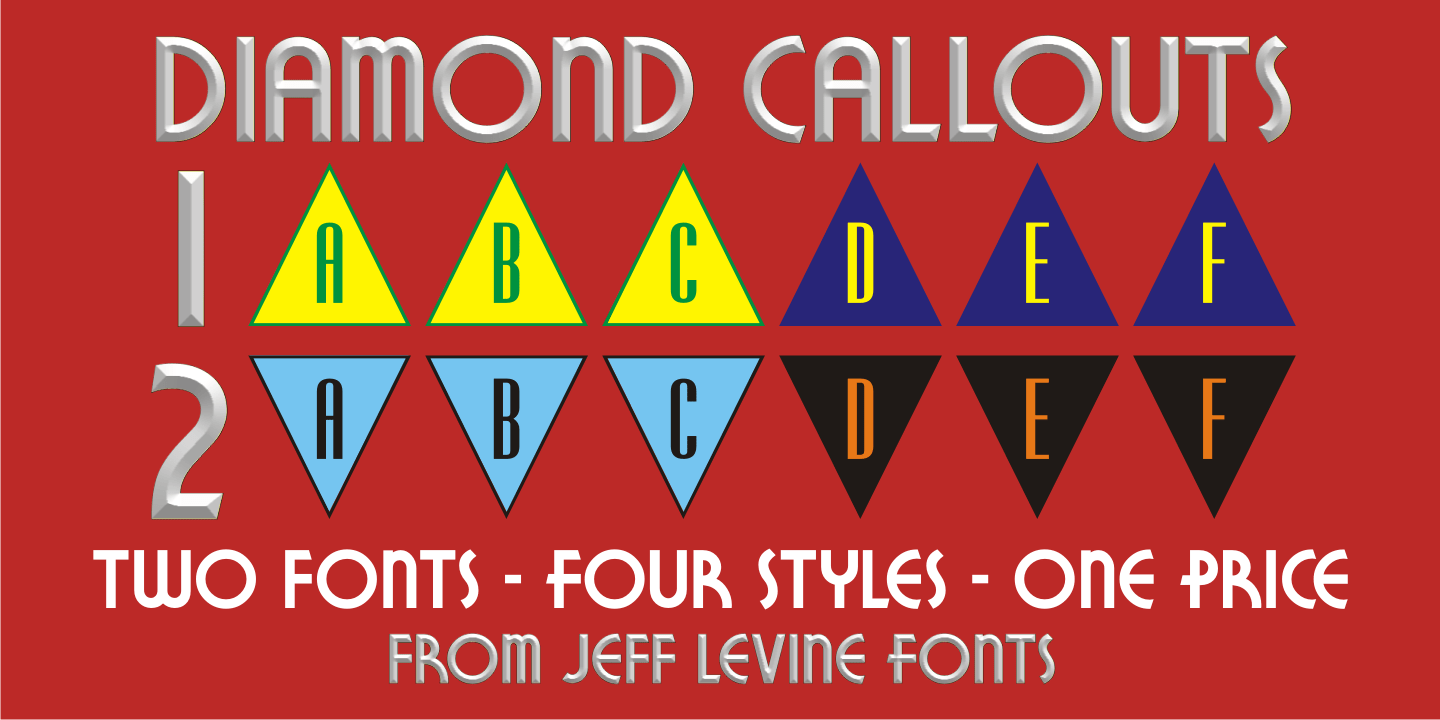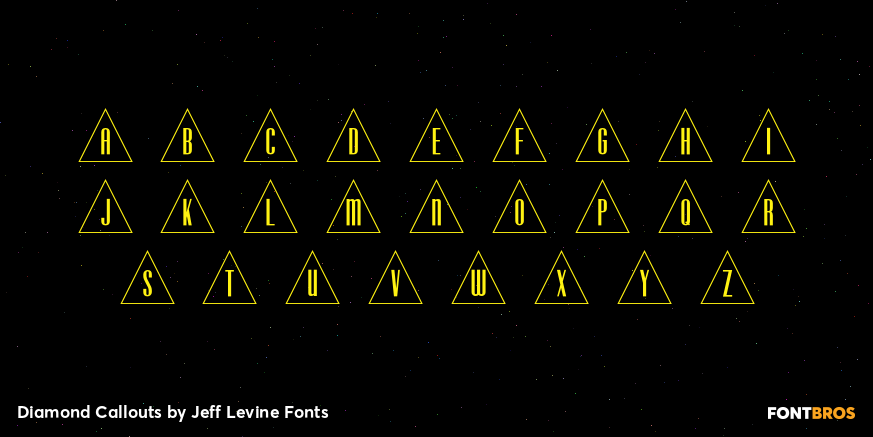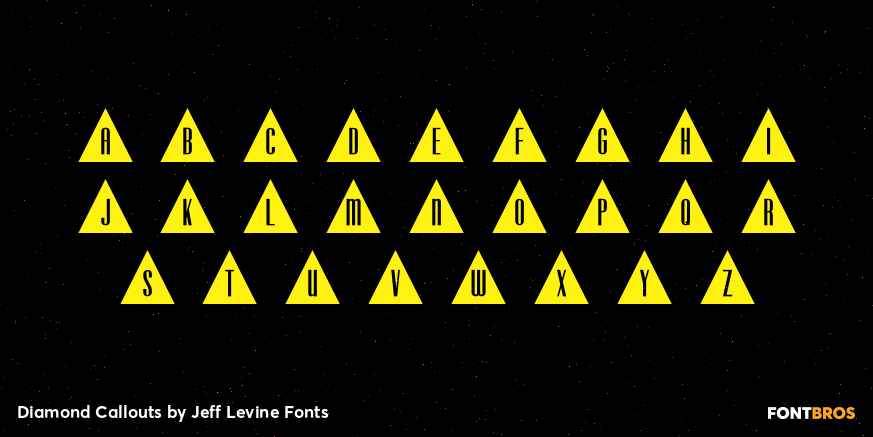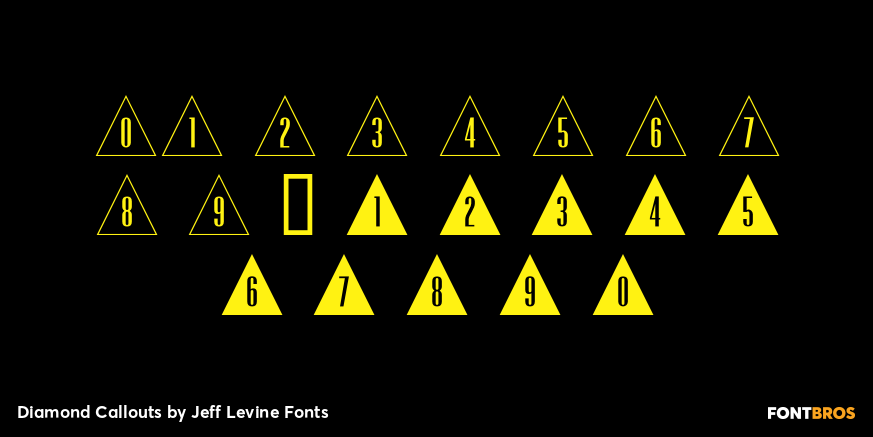
Diamond Callouts
Diamond Callouts JNL is a set of two fonts featuring diamond (triangle) shaped callouts.
As a companion font to Circle Callouts JNL, Square Callouts and Serif Circle Callouts JNL, this design takes on an Art Deco look with a lettering style closely related to Popularity JNL.
Diamond Callouts One JNL features a standard triangle with the apex pointed up, while Diamond Callouts Two JNL has the triangle inverted so the apex points downward.
Both fonts contain black-on-white and white-on-black versions, so there are two fonts and four styles for one price.
Diamond Callouts by Jeff Levine Fonts